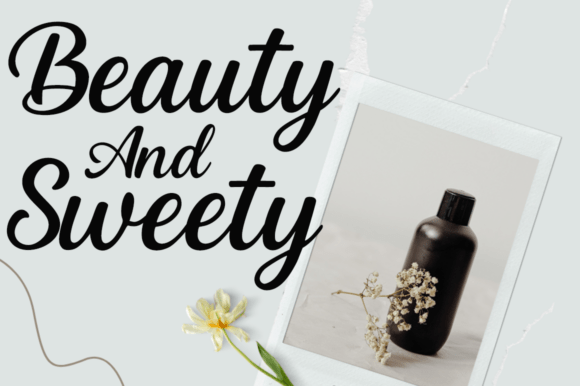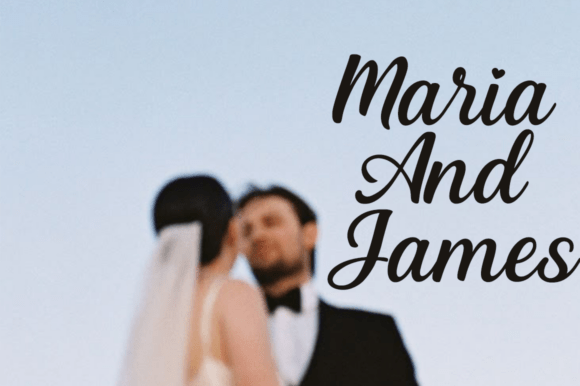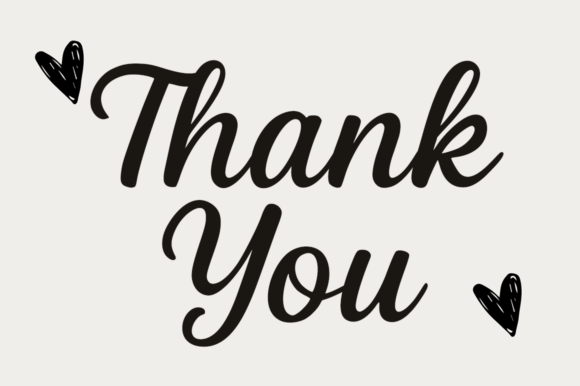
Where Fashion Meets Typography: The Allure of Glamira Script Font
Have you ever found yourself scrolling through your favorite social media feed, mesmerized by the elegant fonts and captivating designs that catch your eye? For designers and creatives, this is often the moment when inspiration strikes – a spark that sets the wheels in motion for a new project or brand identity. In this pursuit of creativity, one font stands out from the rest: the Glamira Script Font.
This contemporary script font is more than just a stylish addition to your design arsenal – it’s a game-changer. With its sleek lines and captivating heart accents, Glamira effortlessly elevates branding endeavors, adds a touch of sophistication to logos, and piques intrigue on packaging. Whether you’re a seasoned designer or just starting out, the Glamira Script Font is a valuable tool that promises to imbue your projects with a fashionable flair.
Glamira Script Font Key Features
- Unique Characteristics: Elegant, cursive script with intricate connections and subtle flair, ideal for creative and artistic designs
Glamira Script Font Review
I recently had the chance to work with the Glamira Script Font, and I must say it’s a beautiful addition to any design project. ✨ The elegant, handwritten feel it brings to text is perfect for creating a luxurious and sophisticated atmosphere. Whether you’re designing a wedding invitation, a branding material, or a packaging label, Glamira Script Font is sure to impress.
- ✨ Elegant and refined aesthetic, perfect for high-end designs
- ✨ Wide range of languages supported, making it a great choice for global brands
- ✨ Highly customizable, with various font styles and sizes available
However, I did encounter a few limitations while working with the font. ⚠️ One of the main issues is the font’s weight, which can sometimes appear too light or fragile, especially in smaller sizes. Additionally, the font’s spacing can be a bit inconsistent, leading to some minor readability issues.
Overall, I think the Glamira Script Font is a great choice for designers who want to add a touch of elegance to their projects. While it may have some limitations, its beautiful aesthetic and wide range of customization options make it a valuable addition to any design toolkit.
For a more elegant look, pair Glamira Script Font with a clean sans-serif font for body text.
For a more polished look, use Glamira Script Font as a title font and pair it with a bold sans-serif font for headings.
For a more professional look, use Glamira Script Font for headings and pair it with a clean sans-serif font for body text.
Glamira Script Font is ideal for:
Branding and marketing materials
Event signage and displays
Personalized gifts and stationery
Use Glamira Script Font to add a touch of elegance and sophistication to your designs.